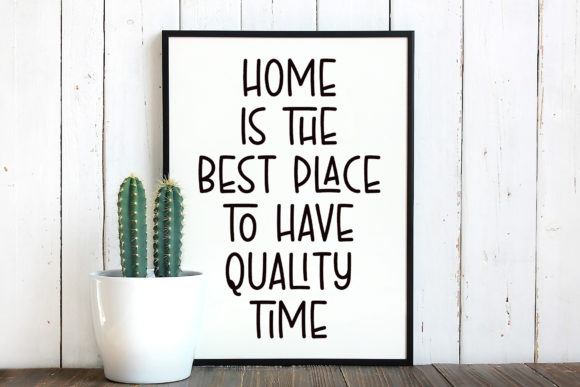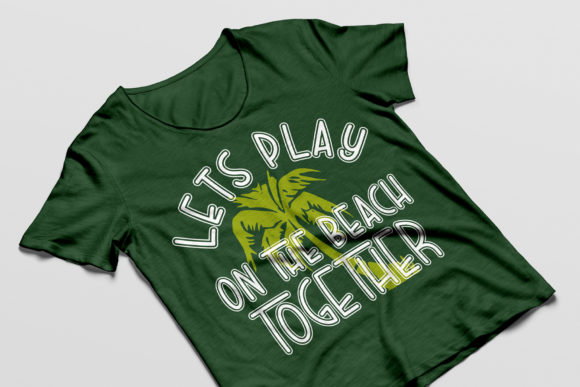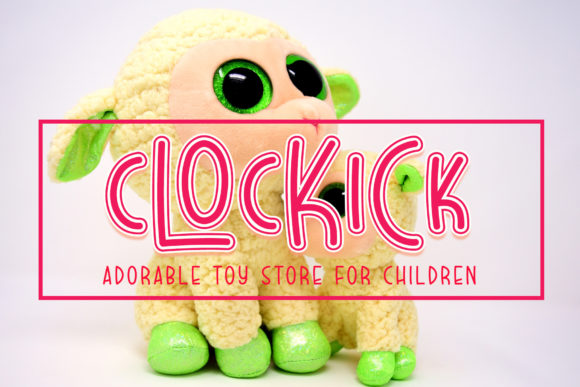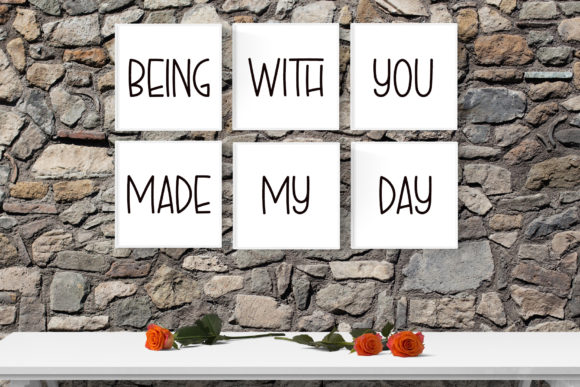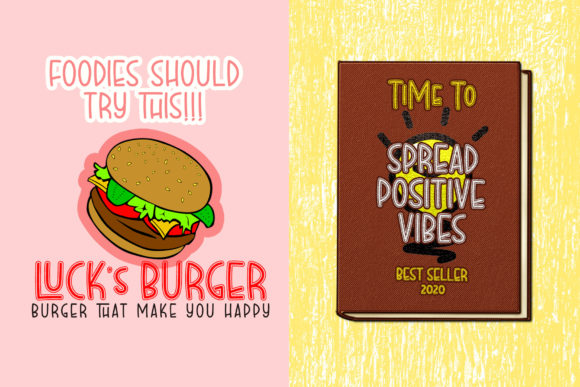
Better Ground Font
About Better Ground Font
Better Ground is a clean, tiny, and skinny handwritten font. The simplicity of this font will make your design look fabulous and elegant.